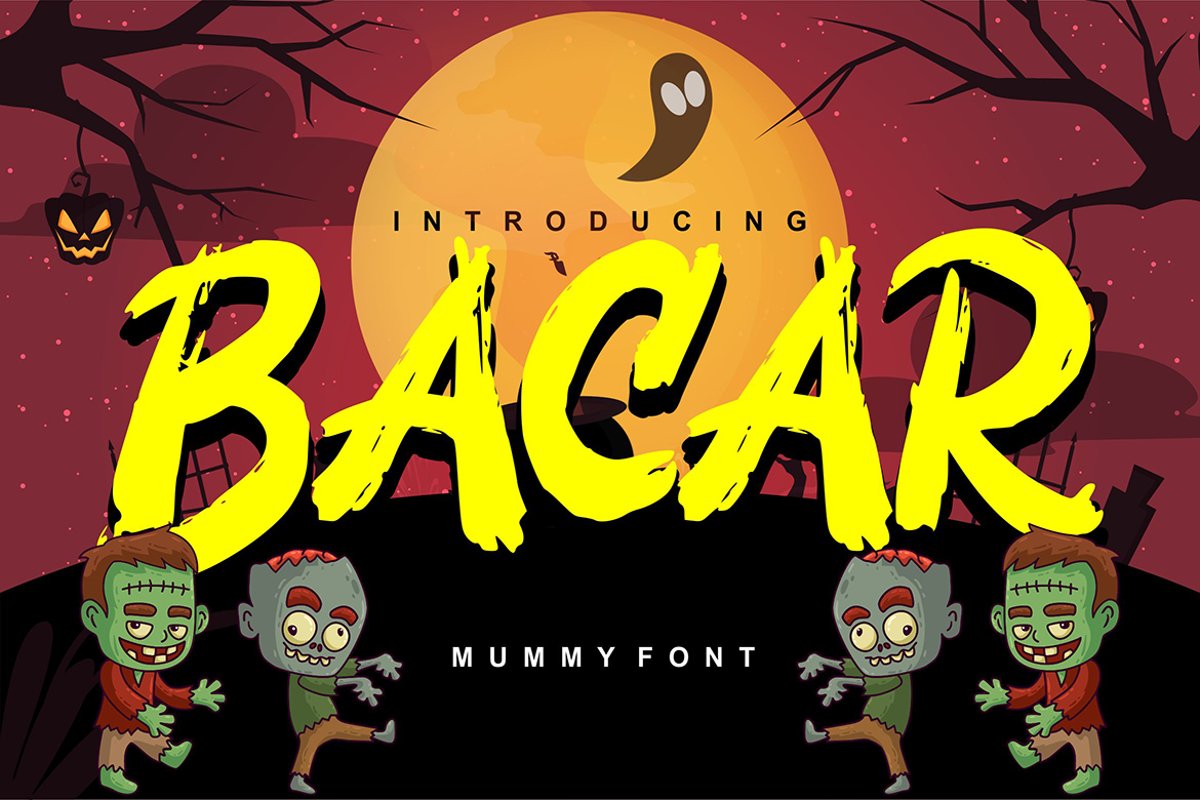
Bacar | Hallowen Theme Font
Bacar
**Bacar | Hallowen Theme Font** with a calligraphy style, So beautiful on invitation like greeting cards, branding materials, business cards, quotes, posters, and more!
* Tons of glyphs
* Alternates and Ligatures
* Fonts include **Multilingual Support**